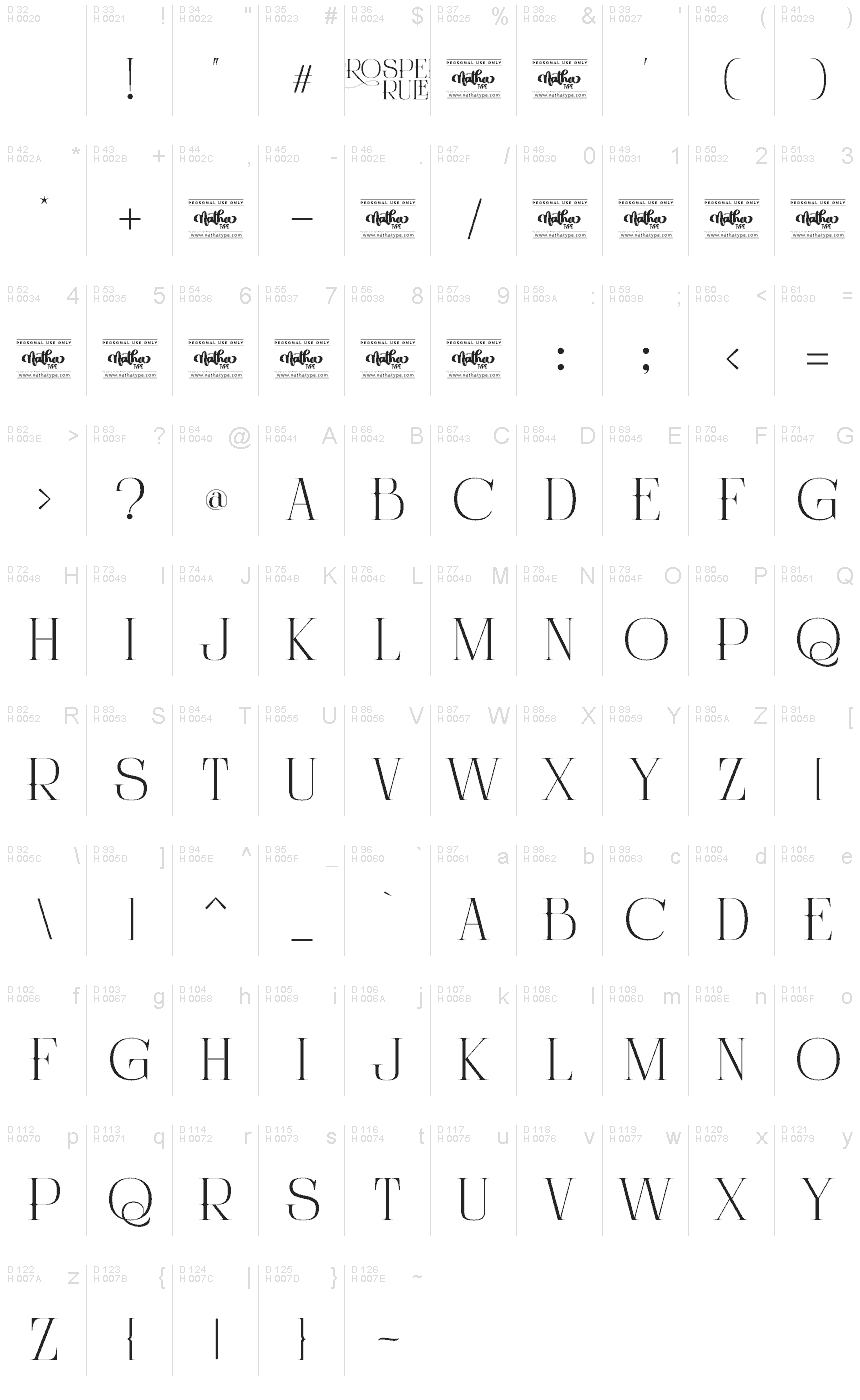
Prosper Rules
Prosper Rules font is another classic-inspired typeface from Nathatype that showcases a strong presence. This modern elegant serif font has exquisite curves with contrasting thicknesses contributing to its sophisticated, refined aesthetic appeal. The typeface as a whole unleashes elegance and class that can deliver your desired visual impact.